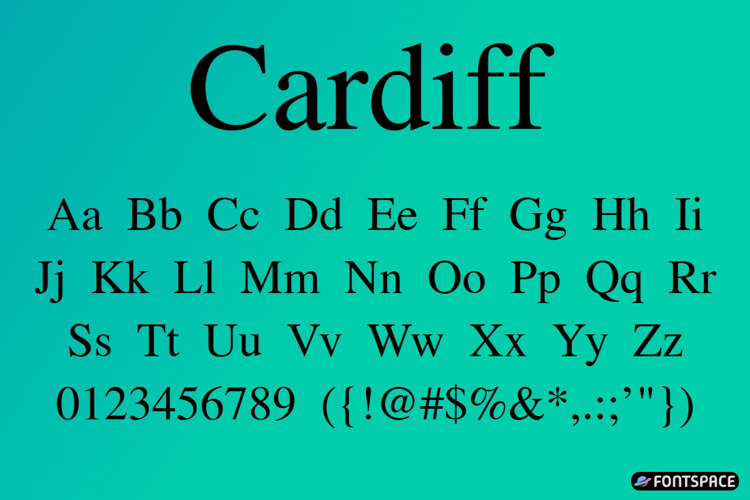
Cardiff Font
Cardiff Font is a Newspaper font and was created on . Cardiff Font has been downloaded 160,515 times, added to 1,607 collections, and liked 33 times.
15 years agothis is like swansea... other characters replaced by 4 characters with carons! Why don't we be proud of times new roman?
almost 15 years agoIf one can't be bothered designing a few ligatures one really shouldn't use a double f in one's name.
13 years agoIt's an exact copy of Times New Roman compare for yourself there is nothing of quality here. Just lies and bullcrap
It's called digitization. Look at Futura Classic, and Architype Renner. Don't those look similar?
elegant!